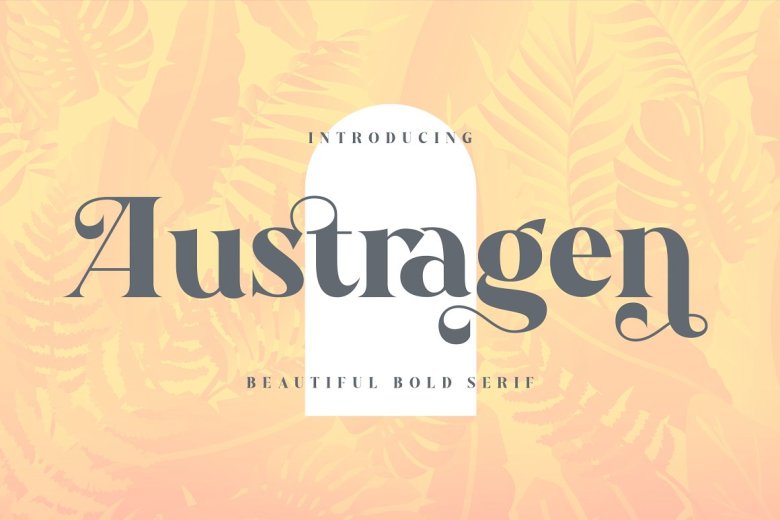
Austragen Font
Austragen Font is a Bold, Elegant and Modern typeface with beautiful ligatures, tons of special alternative glyphs, ornament and multilingual support. Perfect for adding a unique twist to word-mark logos, monograms or pull quotes. Austragen has 11 unique ligatures and 50 Alternate Glyphs as well as numbers and punctuation making it super fantastic.
It is inspired by lettering from the good old past, but it still has a strong modern appearance. Its wide range of stylistic alternates allows versatile design options and works perfectly for headlines, logos, posters, packaging,,coffee shops, restaurants, magazine’s headers, signs or gift/post cards,cafe’s and weddings.